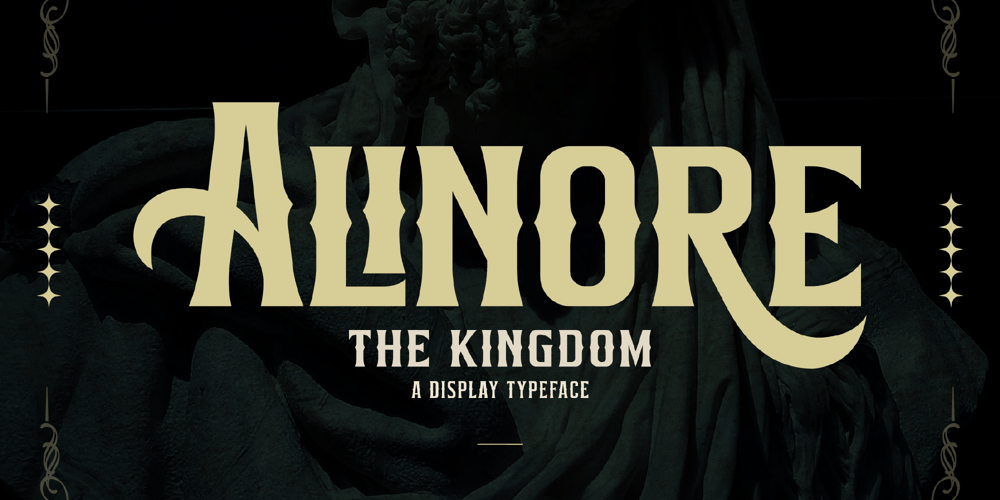
Alinore Font Family was designed by Heru Utama Putra and published by Letterena Studios. Alinore contains 2 styles and family package options. Alinore is a modern and classic serif font with a unique and solemn look. This typeface is perfect for an elegant & luxury logo, book or movie title design, fashion brand, magazine, clothes, lettering, quotes, and so much more. This font is PUA encoded, which means you can access all of the glyphs and swashes with ease!